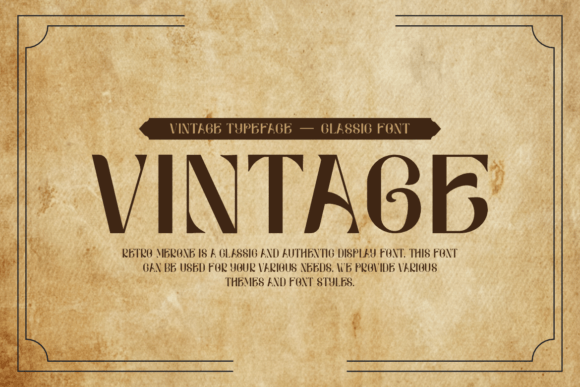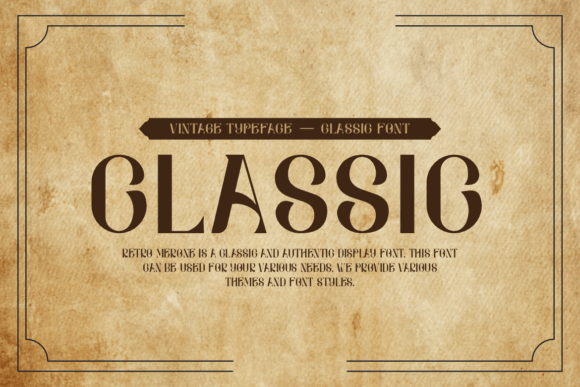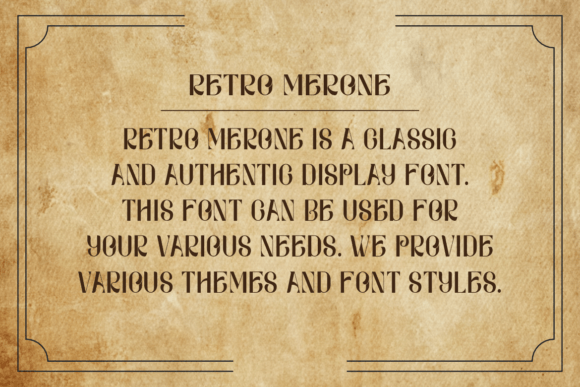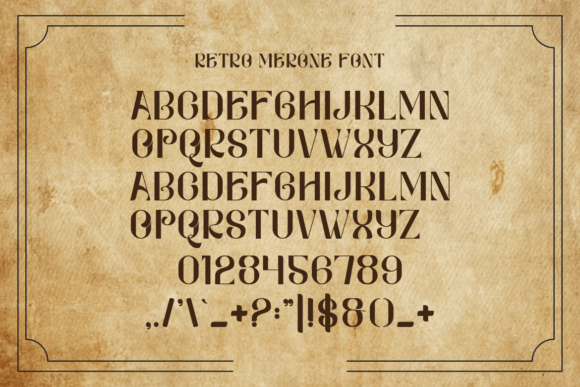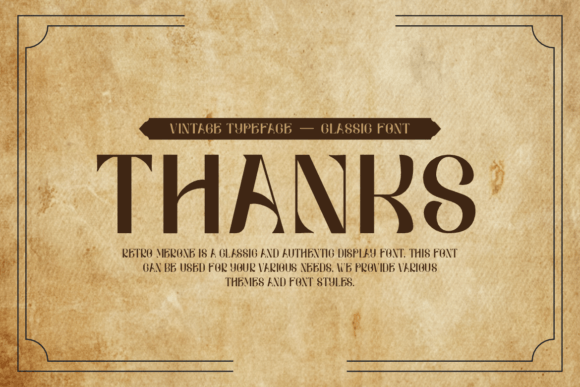
Introduction to Retro Merone Font
Retro Merone is a vintage-style font with a classic, old-fashioned look.
Its bold and elegant design makes it great for giving a timeless feel to posters, logos, and other creative projects .
Key Features of Retro Merone Font
Why Choose Retro Merone Font?
Retro Merone Font offers exceptional quality and versatility, making it a valuable addition to your design toolkit. Whether you’re creating for personal projects or commercial use, Retro Merone Font delivers professional results.